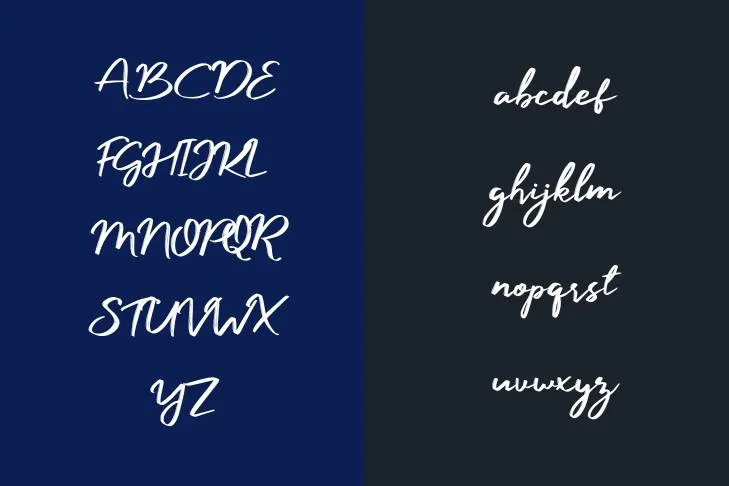
Today, I would like to shed light on the Manyland font that was masterfully developed by Jason Zhao in 2012. It is a unique handwritten style that includes both trendy and retro design elements. The aim was to design a typeface that should be adaptable and will remain intact.
This exquisite typeface’s texture is suitable for both print and digital applications and even shows remarkable results when used for small-sized texts or body content purposes. Despite having a bold and geometric structure, it has a more comfortable and natural feel because of its smooth curves.
Moreover, this splendid typeface is extremely legible and appropriate for both headings and body writing purposes. However, the Art Deco Corporation and Bauhaus Movement design style inspired this typeface.
Almost any form of design project, including printed materials can be developed using this complex typeface. Your project will come into existence and appear bigger than usual if you simply utilize some extra graphic designs along with your imagination.
If you want to create a greeting card, a package, a brand identity, a craft project, a title for an article, a company logo, or to engrave letters on an engagement ring then you must go with this gorgeous typeface. When in need of a font with style and characters, look no further than the blackjack font as it perfectly aligns with the font mentioned.
You can optimize this splendid typeface to create a vibrant historical design, a classic project, or any other art or design project that you want to seem lovely and trendy. You can play around with all the amazing shapes and patterns of this exceptional typeface.
Display Of Manyland Font
This fabulous typeface is offered in two weights: Regular and Bold. It also comprised a stunning set of characters including accented characters, ligatures, and glyphs along with a support of multilingual characters.
What kind of text style the Manyland typeface is?
It was masterfully developed by Jason Zhao in 2012. This font is a unique handwritten typeface that includes both modern and retro design elements.